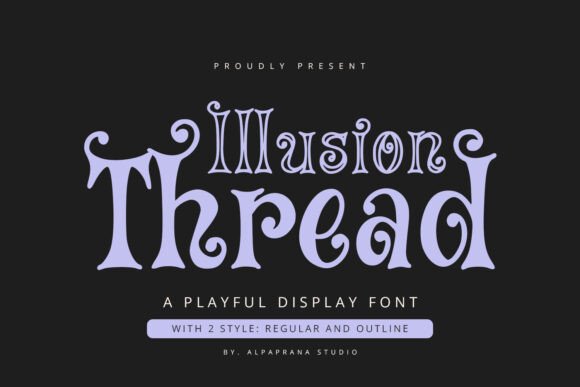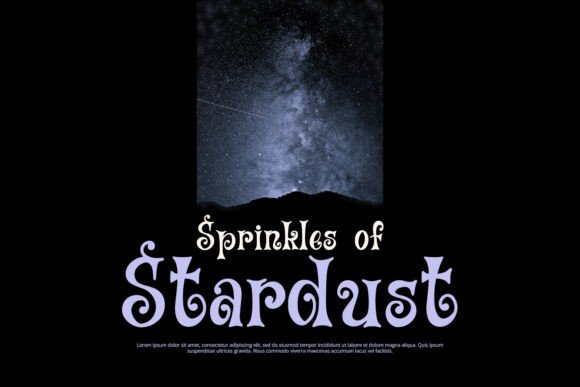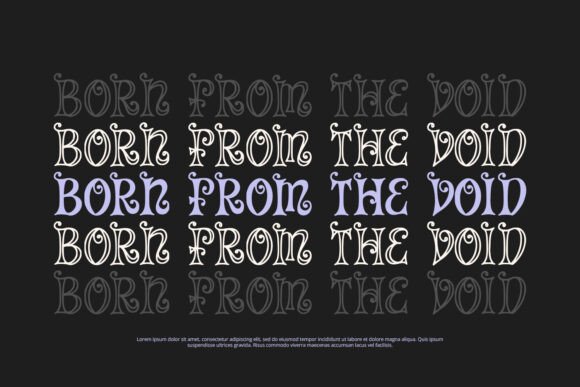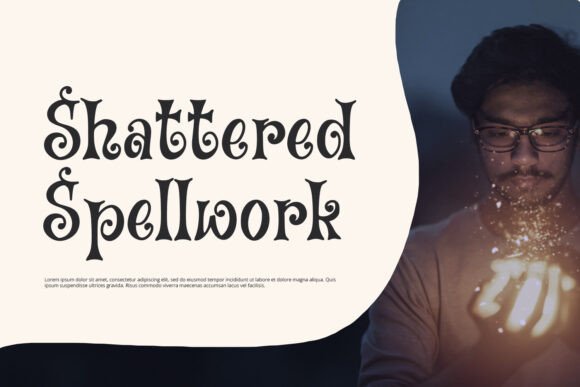
Illusion Thread Font: A Playful Display Font for Creative Branding
About the Illusion Thread Font
Make a bold statement with Illusion Thread Font, a powerful and memorable font. Illusion Thread is display font with modern and playful feels. It will be perfectly used for packaging, posters, shopping bags, t-shirts, book covers, photography, special events and other design projects.
Its playful yet modern feel makes it ideal for branding projects needing a touch of whimsy, particularly those targeting younger demographics or promoting creative, fun products. It excels in headlines, short text blocks, and logos, adding visual interest without overwhelming the design. Avoid using it for body text or UI elements where readability is paramount; its decorative nature compromises legibility in extended use.
Consider pairing Illusion Thread with a clean sans-serif like Open Sans for body copy or a classic serif like Garamond for a sophisticated contrast. A geometric sans-serif such as Futura could also create a striking, modern combination. The choices depend on desired overall mood—Open Sans offers a friendly contrast, while Futura leans towards a more bold, contemporary aesthetic.
Illusion Thread’s core personality is undeniably playful and modern, yet sophisticated enough to maintain visual impact. It’s best suited for brands and projects that embrace a youthful energy and seek a unique, memorable visual identity.
Illusion Thread Font Usage Examples
Illusion Thread Font Example